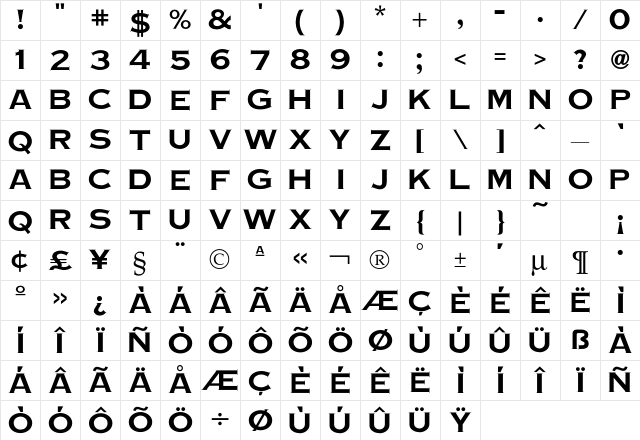
Copperplate GothicBold
Style: GothicBold
Copperplate Family
Copperplate GothicBold
Complete Copperplate GothicBold glyph index. Displaying only characters natively supported by Copperplate GothicBold font.
Design Context for Copperplate
Copperplate takes a clean, functional approach - its unadorned letterforms prioritise legibility and work reliably across screen and print environments. Its bold stroke weight gives it real presence on the page.
Font Pairing: Use Copperplate for headlines alongside a lighter-weight sans or serif for body copy to establish clear visual hierarchy.
Pro Tip: Use Copperplate for UI labels, navigation, and short-form body copy where clean legibility is the priority.